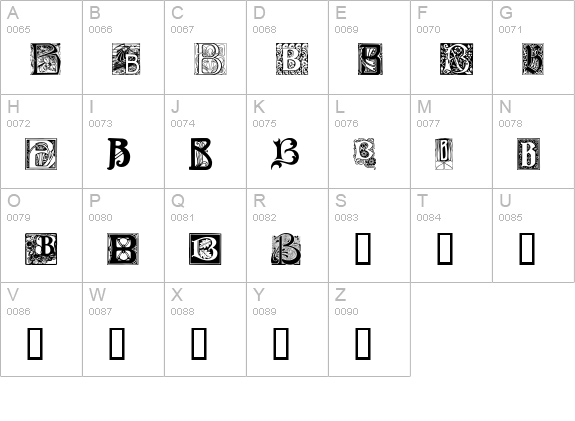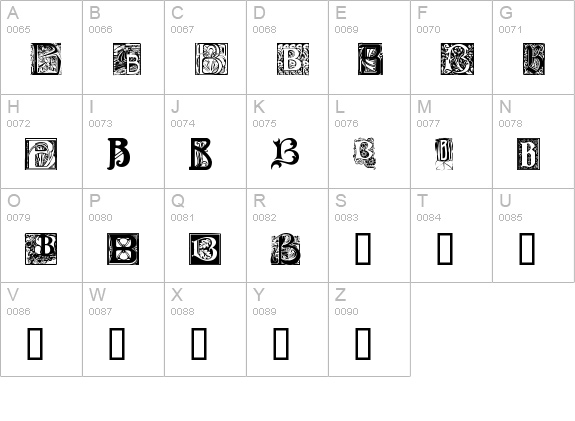
Art Nouveau Initials B font is a stunning and elegant typeface that embodies the intricate and flowing characteristics of the Art Nouveau style. This font features ornate and decorative initials that are perfect for adding a touch of sophistication to your designs. The delicate curves and intricate details make Art Nouveau Initials B font a versatile choice for a wide range of projects, from invitations to branding to decorative elements. What sets this font apart is its timeless beauty and unique charm, making it a standout choice for anyone looking to add a touch of vintage flair to their work. Whether you're creating wedding invitations, designing a logo, or adding a special touch to a project, Art Nouveau Initials B font is sure to impress. Best of all, Art Nouveau Initials B font is available for free download at FontsMarket.com. This means you can easily access this exquisite typeface and incorporate it into your projects without any cost. Don't miss out on the opportunity to enhance your designs with the beauty and elegance of Art Nouveau Initials B font - download it today and elevate your creations to a new level of sophistication.